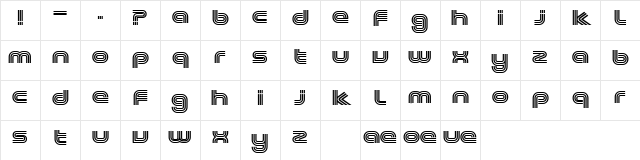
Excellence Extended Free Font
Excellence Extended
Style: Extended
Design Context for Excellence
Excellence is a composed and adaptable typeface that performs quietly and consistently across a wide range of design contexts.